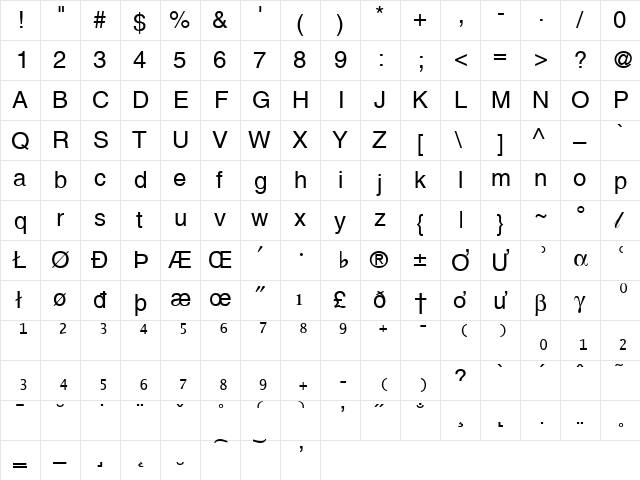
Voyager Regular
Design Context for Voyager Typeface
Voyager offers clean, dependable letterforms without strong stylistic allegiance, making it a practical choice for designers who need flexibility.
Pro Tip: Use Voyager in both headline and body roles to test its range before committing to a single application.